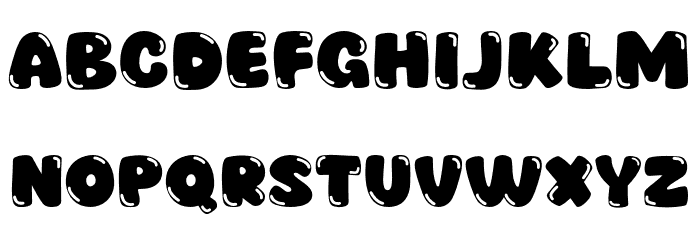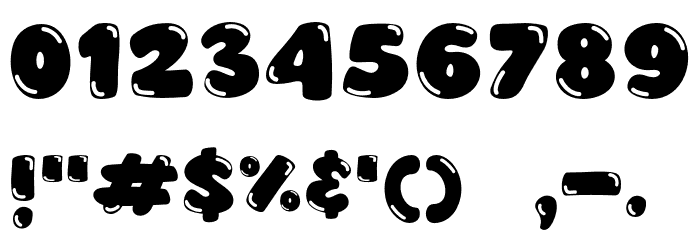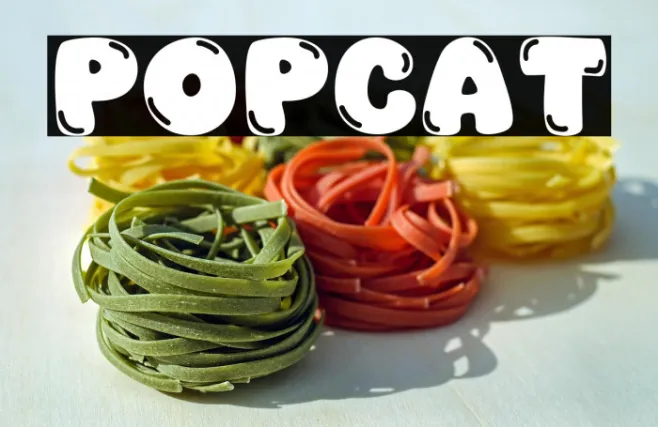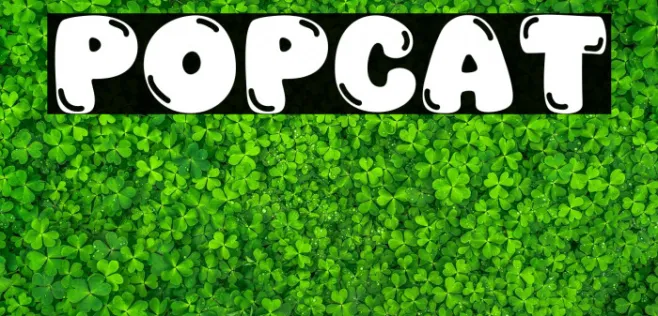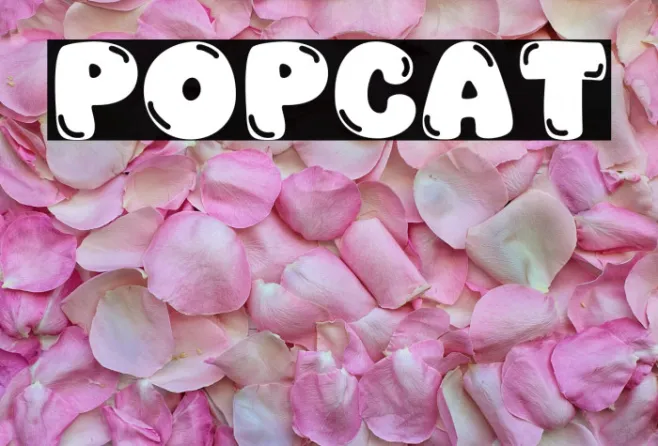
Popcat Font
This playful and bold font features a bubbly, rounded design that exudes a sense of fun and whimsy. Each character is crafted with a thick, uniform stroke that gives the font a strong presence. The letters are slightly inflated, resembling balloons or cartoonish shapes, which adds to its playful nature. The font maintains consistent weight across all characters, ensuring readability while retaining its unique style. The spacing between characters is balanced, allowing for clear legibility even in dense text. This font is perfect for projects that require a touch of humor or a lighthearted feel.
A playful, bold font with a bubbly, rounded design ideal for fun projects.
- Proposed Projects: Ideal for children's books, comic strips, playful branding, party invitations, and any project that requires a whimsical touch.
- Overall Style: Playful